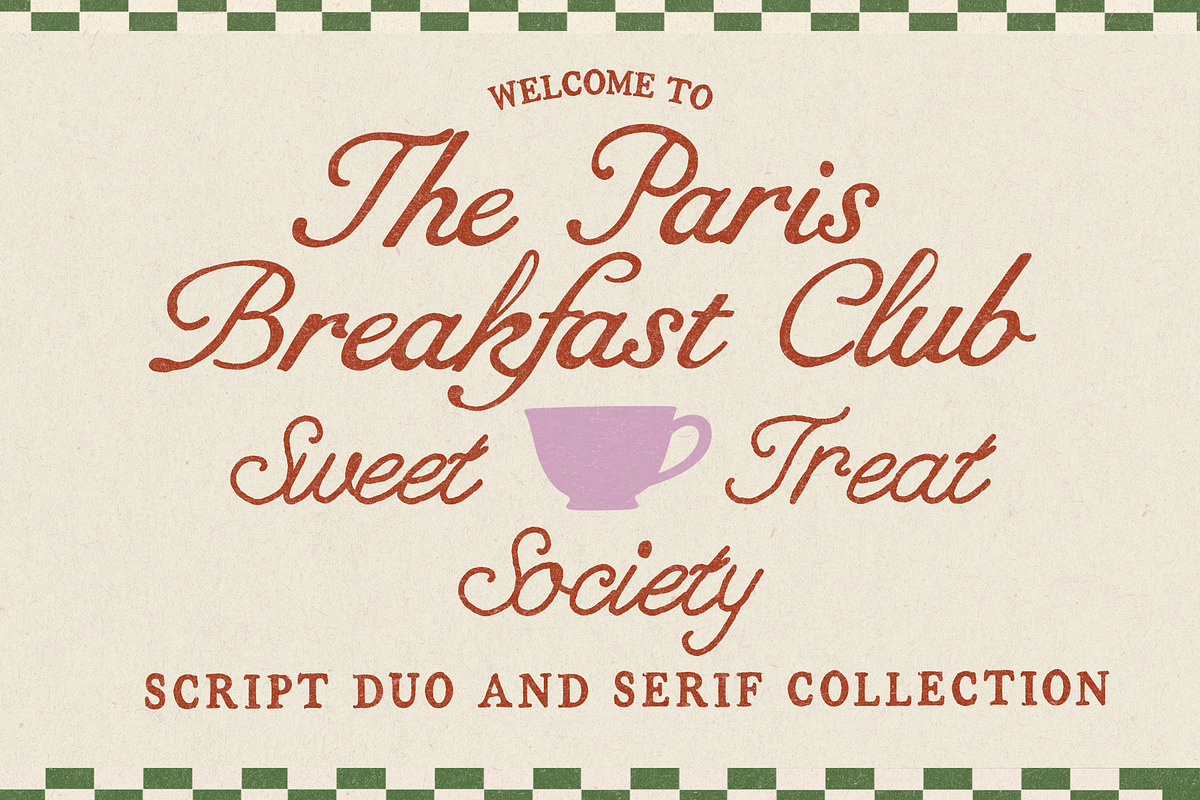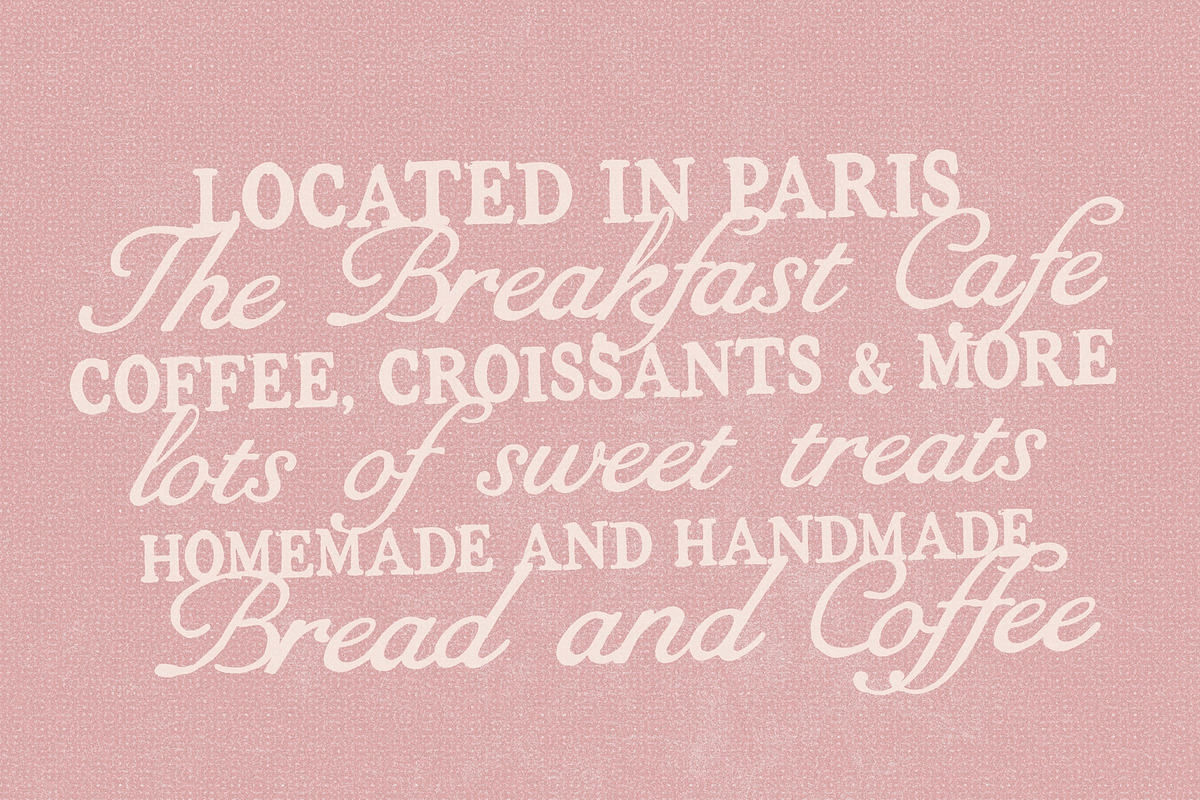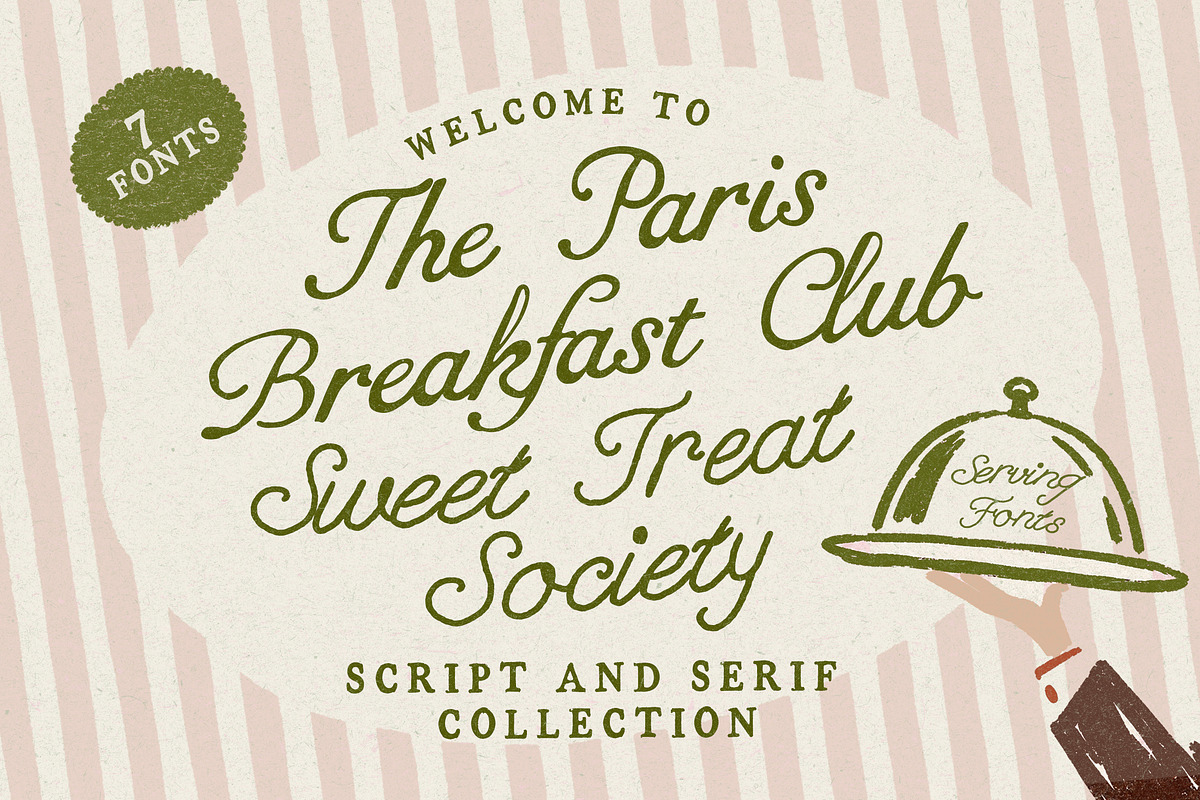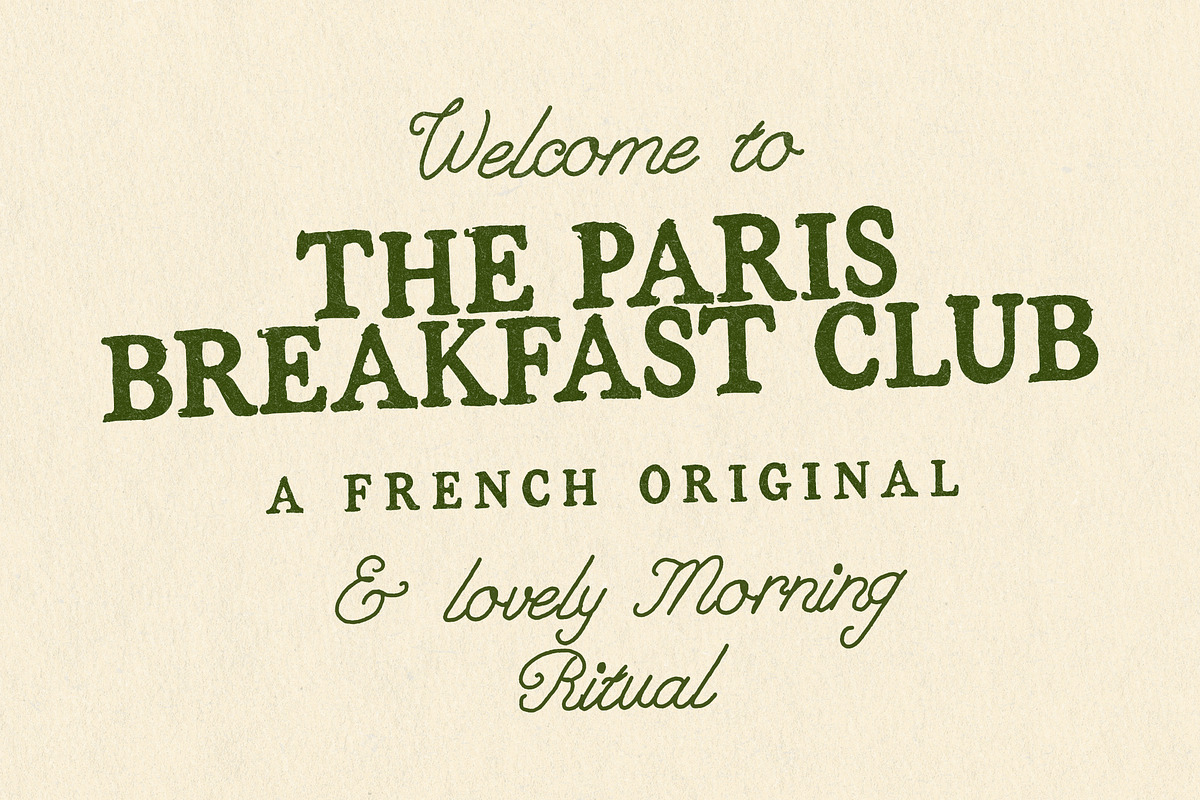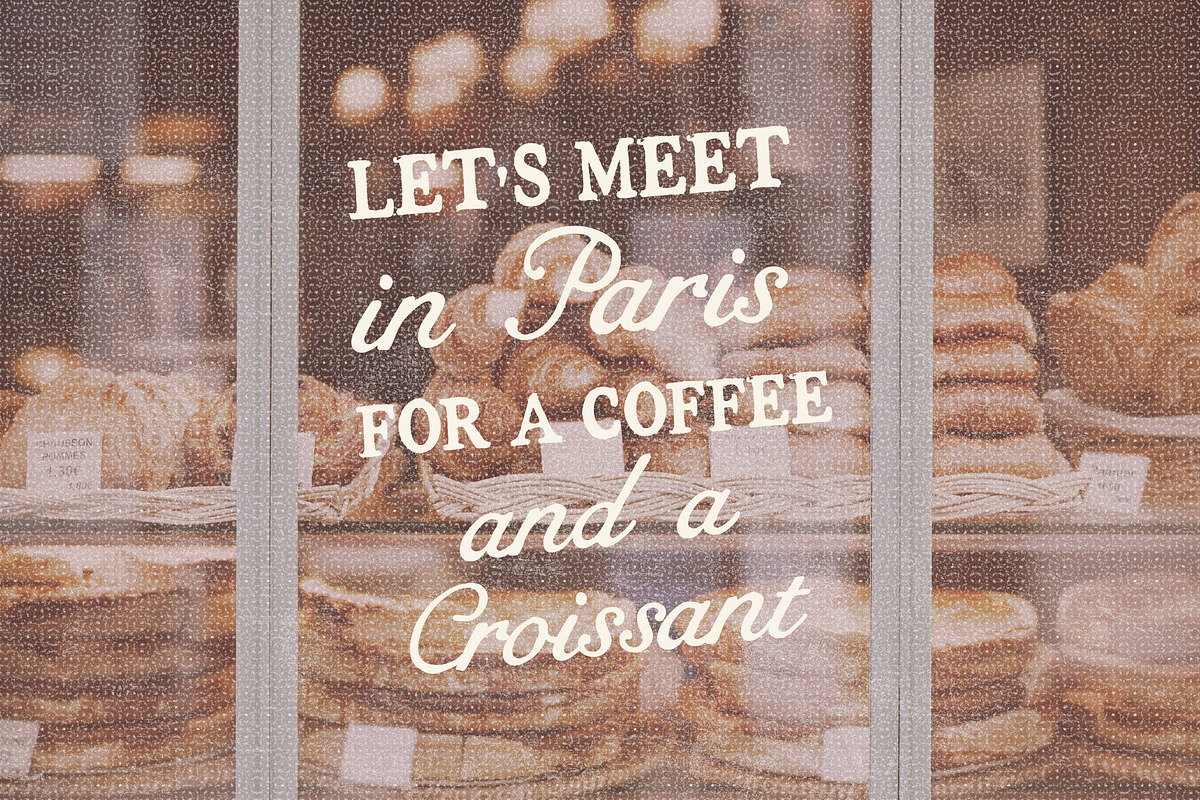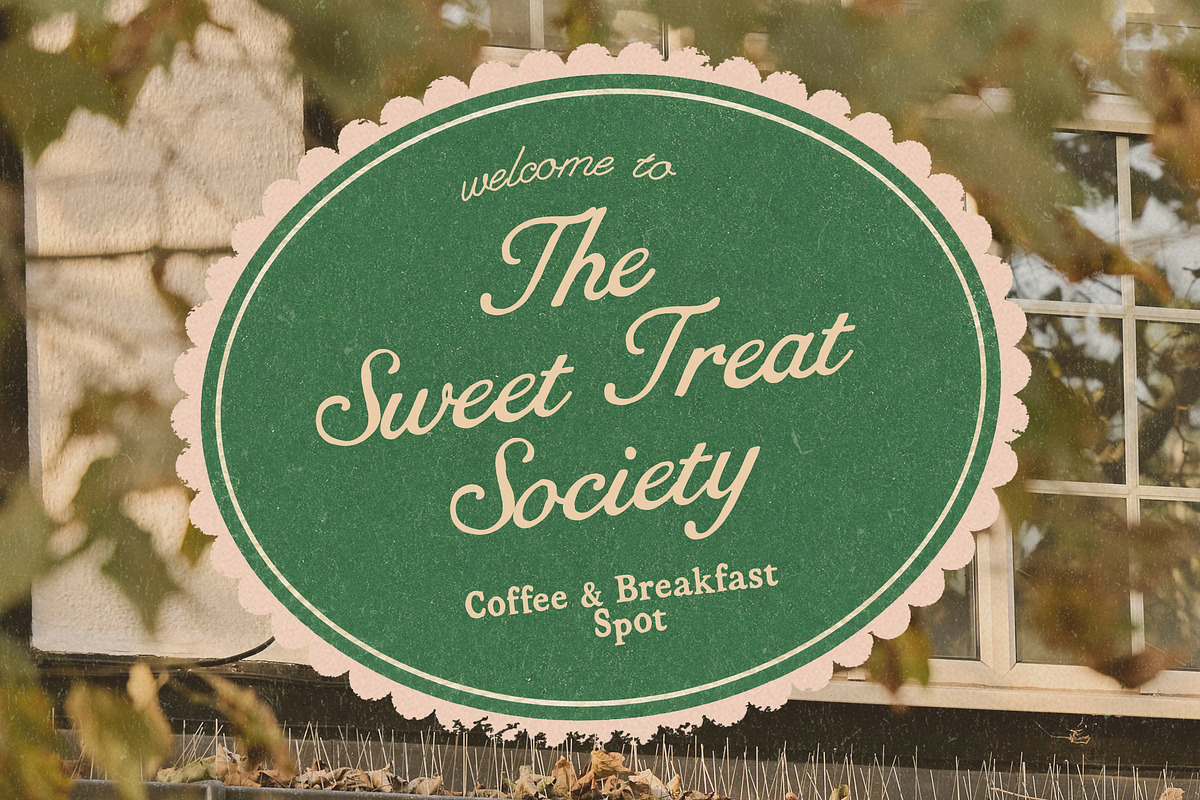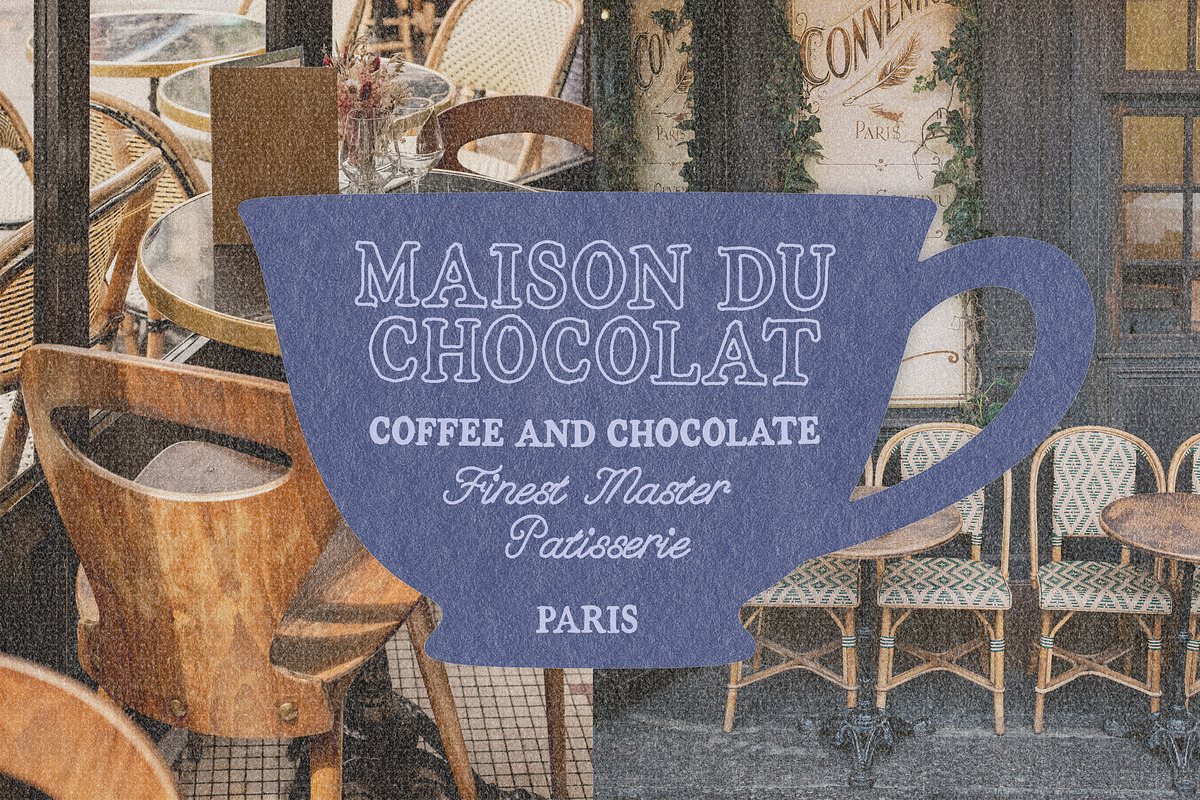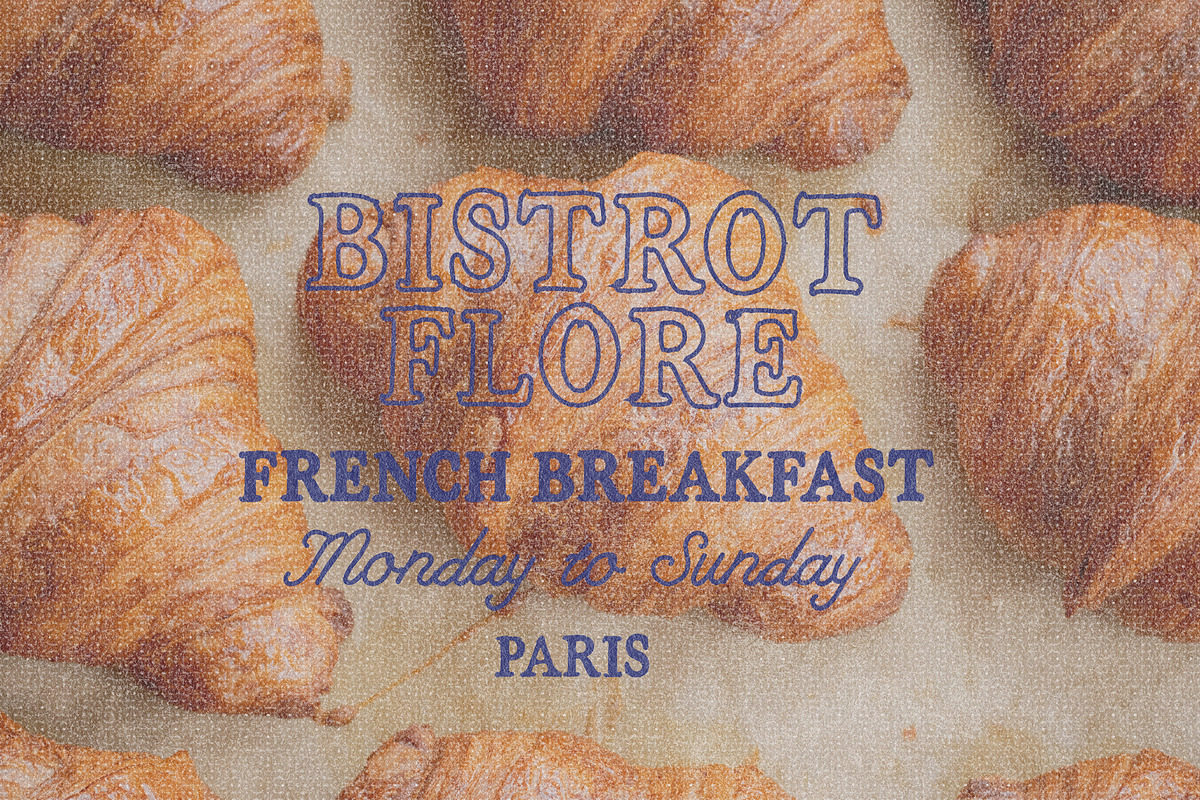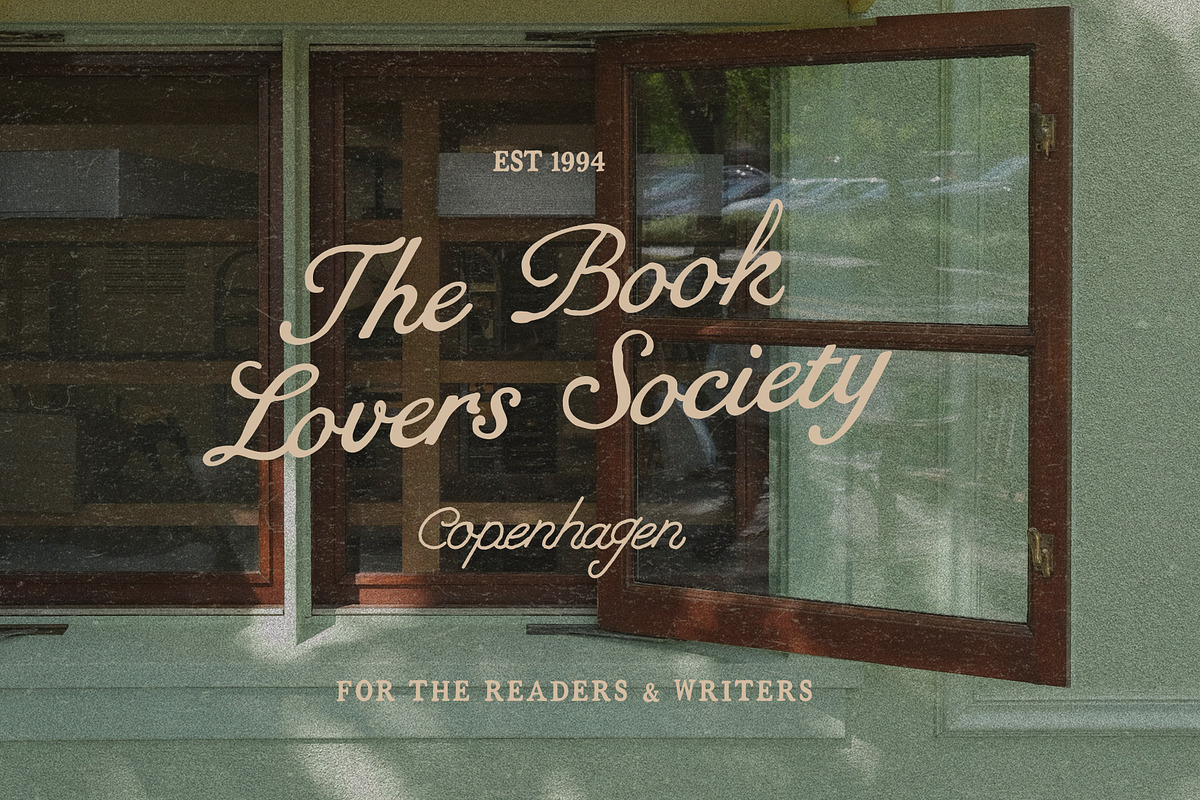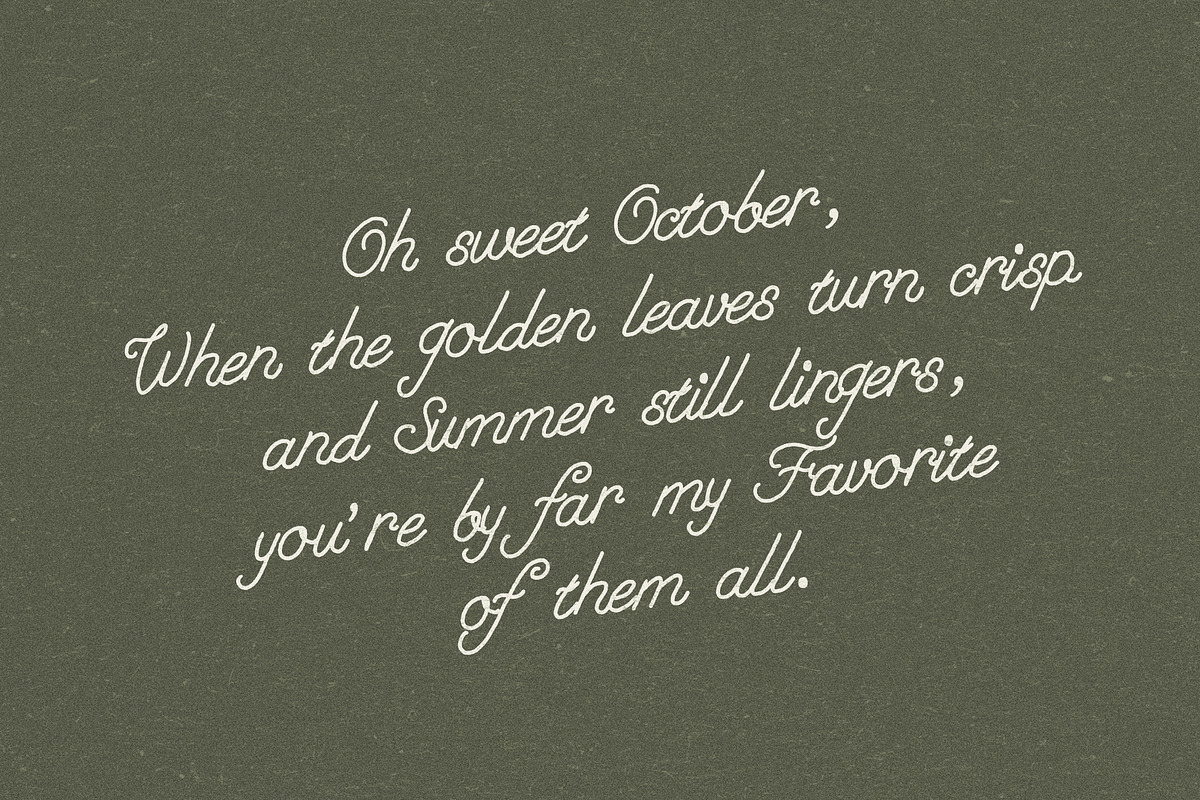
Handwritten Autumn Signage Fonts
Meet Paris Breakfast Club & Sweet Treat: a cosy, handwritten font collection made for slow autumn mornings, flaky croissants, warm coffee and (probably too many) sweet treats.
This charming fall-inspired font bundle includes a versatile serif in 3 weights, a sweet rustic handwritten script, and a more elegant, bold script font for those extra-special finishing touches.
Perfect for branding, logos, packaging, social media, invitations, editorial design, café branding, autumn projects, seasonal graphics and anything that needs a little handcrafted, romantic Parisian charm.
ParisBreakfastClub.Otf (a rustic, handwritten serif)
ParisBreakfastClub-Script.Otf (a smooth, more bold handwritten script)
SweetTreat.Otf (a cute and rustic handwritten script)
Think: vintage bakery meets cosy French morning - with a tiny bit of delicious chaos! :)